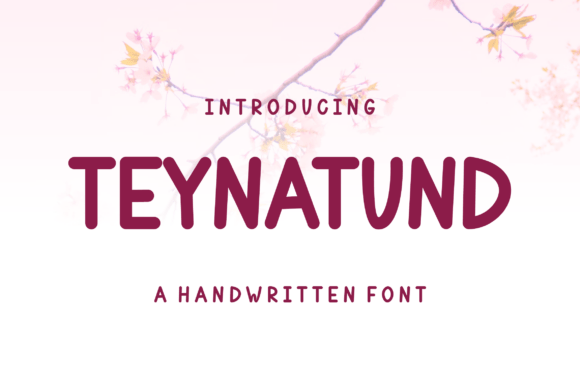
Teynatund Font: Elevate Your Brand with a Modern and Bold Display Font
In the world of typography, fonts play a crucial role in shaping the identity of a brand. A well-designed font can instantly elevate your brand’s visual appeal and make it stand out from the competition. Introducing Teynatund Font, a modern and bold display font that is perfect for any branding project. In this article, we’ll explore the features and benefits of Teynatund Font and why it’s an excellent choice for your next project.
What is Teynatund Font?
Teynatund Font is a bold and authentic display font designed to make a statement. Its modern and sleek design makes it perfect for a wide range of applications, from logos and t-shirt printing to creative products and more. The font’s unique and extraordinary design makes it versatile and suitable for use in a variety of contexts.
Benefits of Using Teynatund Font
There are several benefits to using Teynatund Font for your branding project. Some of the key benefits include:
- Unique and Memorable: Teynatund Font’s bold and modern design makes it instantly memorable and perfect for creating a lasting impression.
- Versatile: The font’s versatility makes it suitable for use in a wide range of applications, from logos and t-shirt printing to creative products and more.
- Easy to Read: Despite its bold design, Teynatund Font is easy to read, making it perfect for use in both digital and print materials.
- Customizable: The font’s design allows for easy customization, making it easy to adapt to your brand’s unique needs.
Uses of Teynatund Font
Teynatund Font is perfect for a wide range of applications, including:
- Logos: The font’s bold and modern design makes it perfect for creating unique and memorable logos.
- T-Shirt Printing: Teynatund Font’s design makes it ideal for use in t-shirt printing, adding a touch of style and sophistication to any design.
- Creative Products: The font’s versatility makes it suitable for use in a wide range of creative products, from posters and flyers to brochures and more.
- Digital Materials: Teynatund Font is perfect for use in digital materials, including website headers, social media graphics, and more.
The Design of Teynatund Font
Teynatund Font’s design is a perfect blend of modernity and boldness. The font’s sleek lines and curves make it instantly recognizable and memorable. The font’s unique design elements include:
- Bold and Thick Lines: The font’s bold and thick lines make it perfect for creating a lasting impression.
- Unique Letterforms: Teynatund Font’s unique letterforms make it instantly recognizable and add to its memorability.
- Modern and Sleek Design: The font’s modern and sleek design makes it perfect for use in a wide range of applications.
In conclusion, Teynatund Font is a modern and bold display font that is perfect for any branding project. Its unique and memorable design makes it instantly recognizable, and its versatility makes it suitable for use in a wide range of applications. With its ease of use and compatibility with various software and devices, Teynatund Font is an excellent choice for any designer or brand looking to elevate their visual identity.